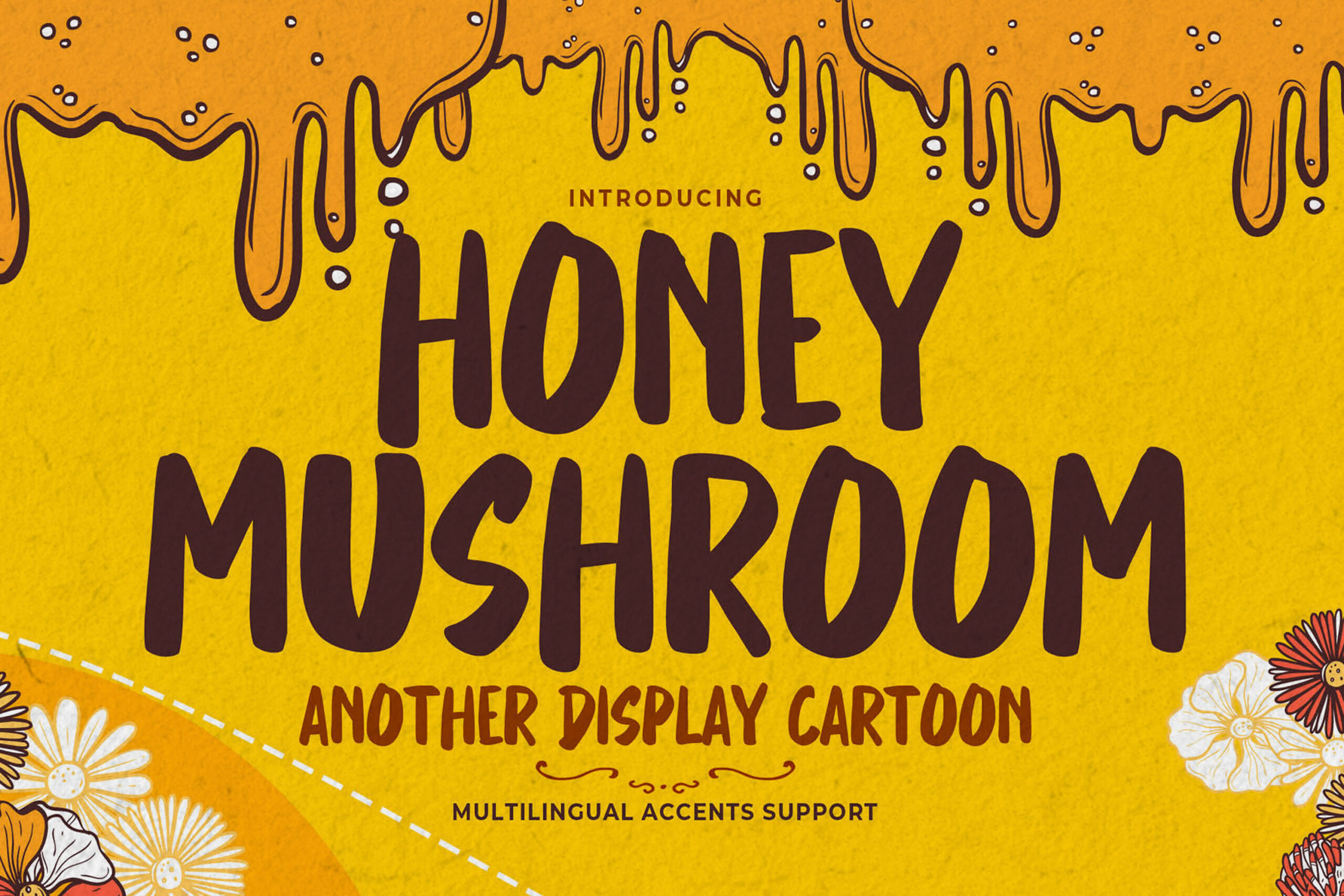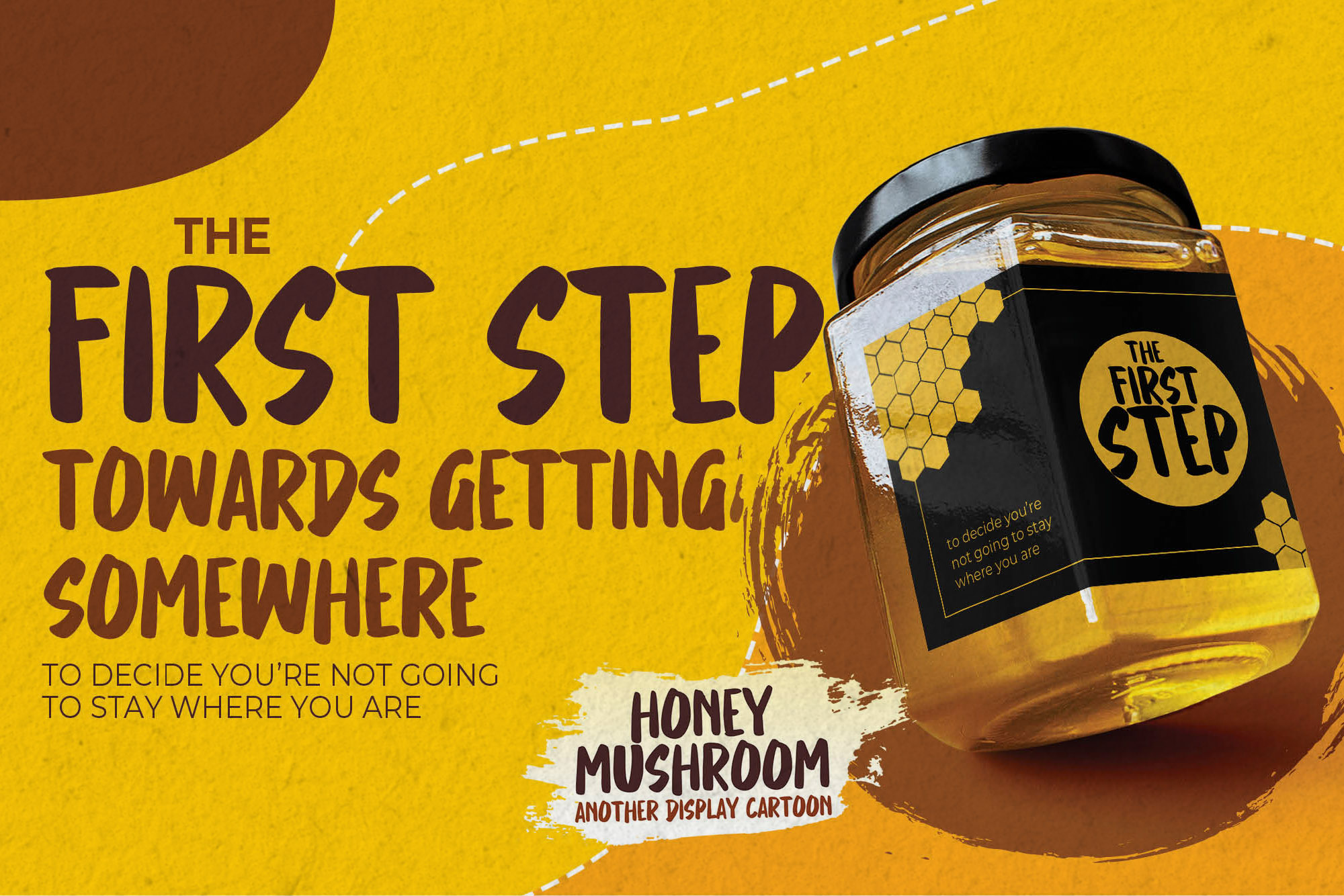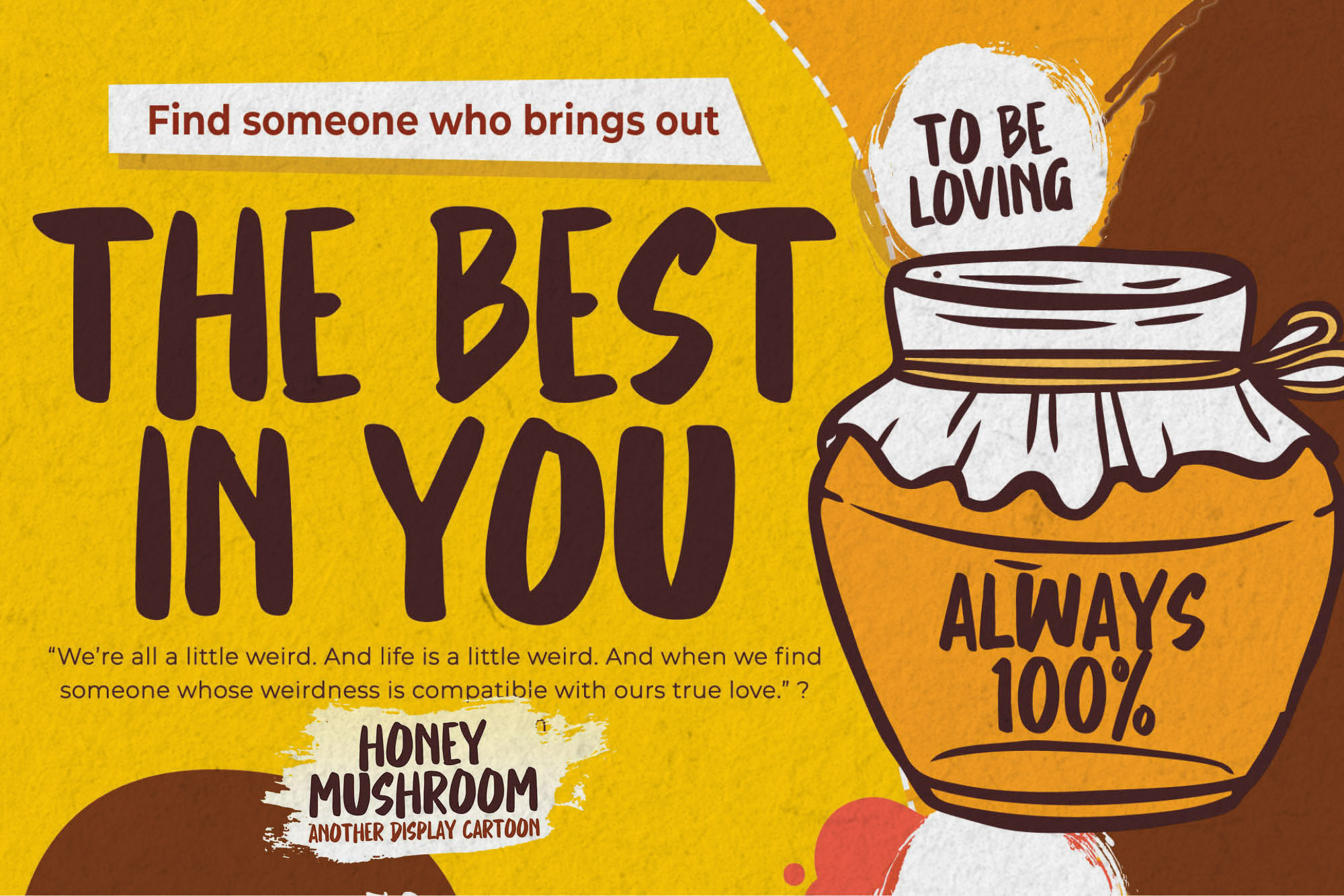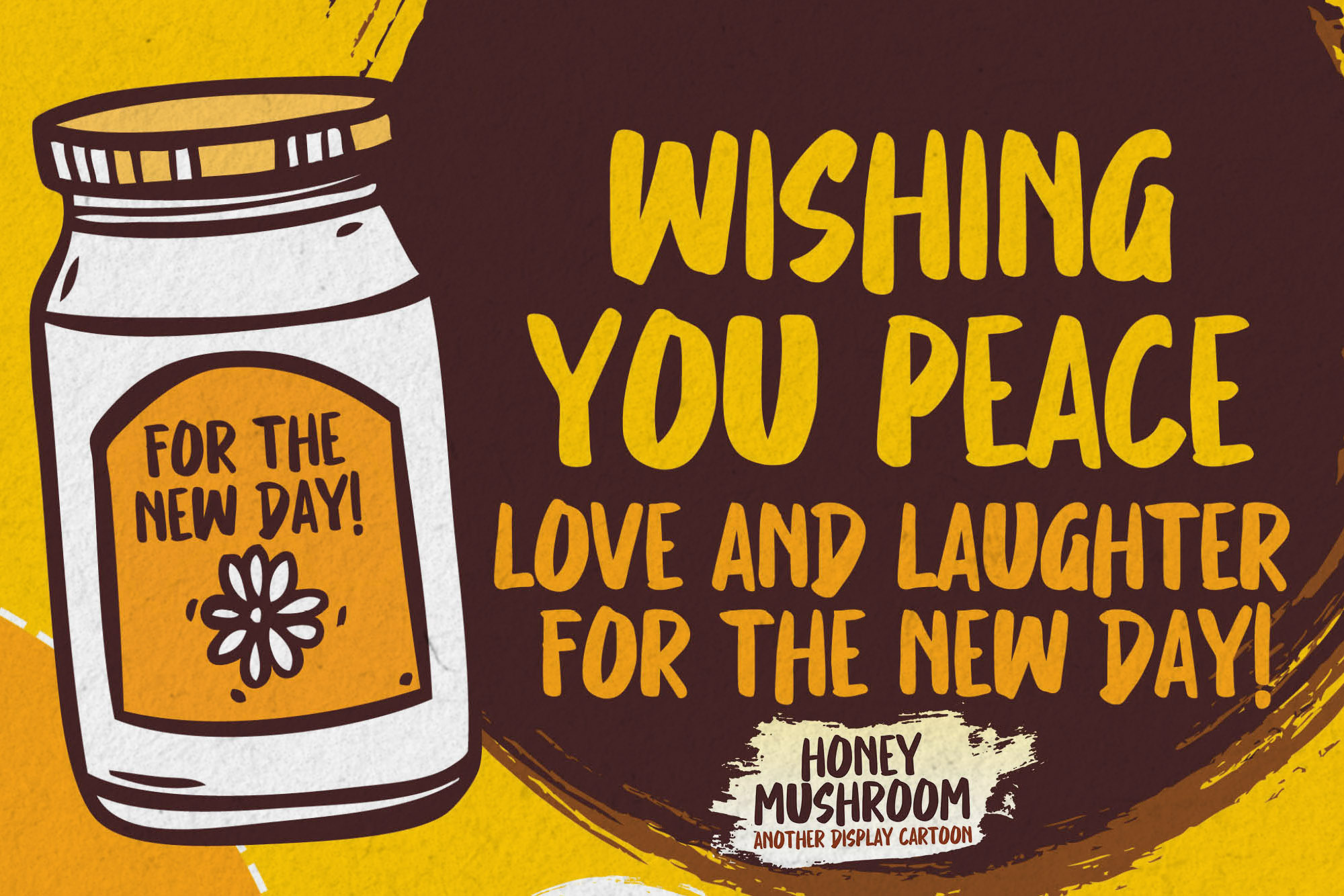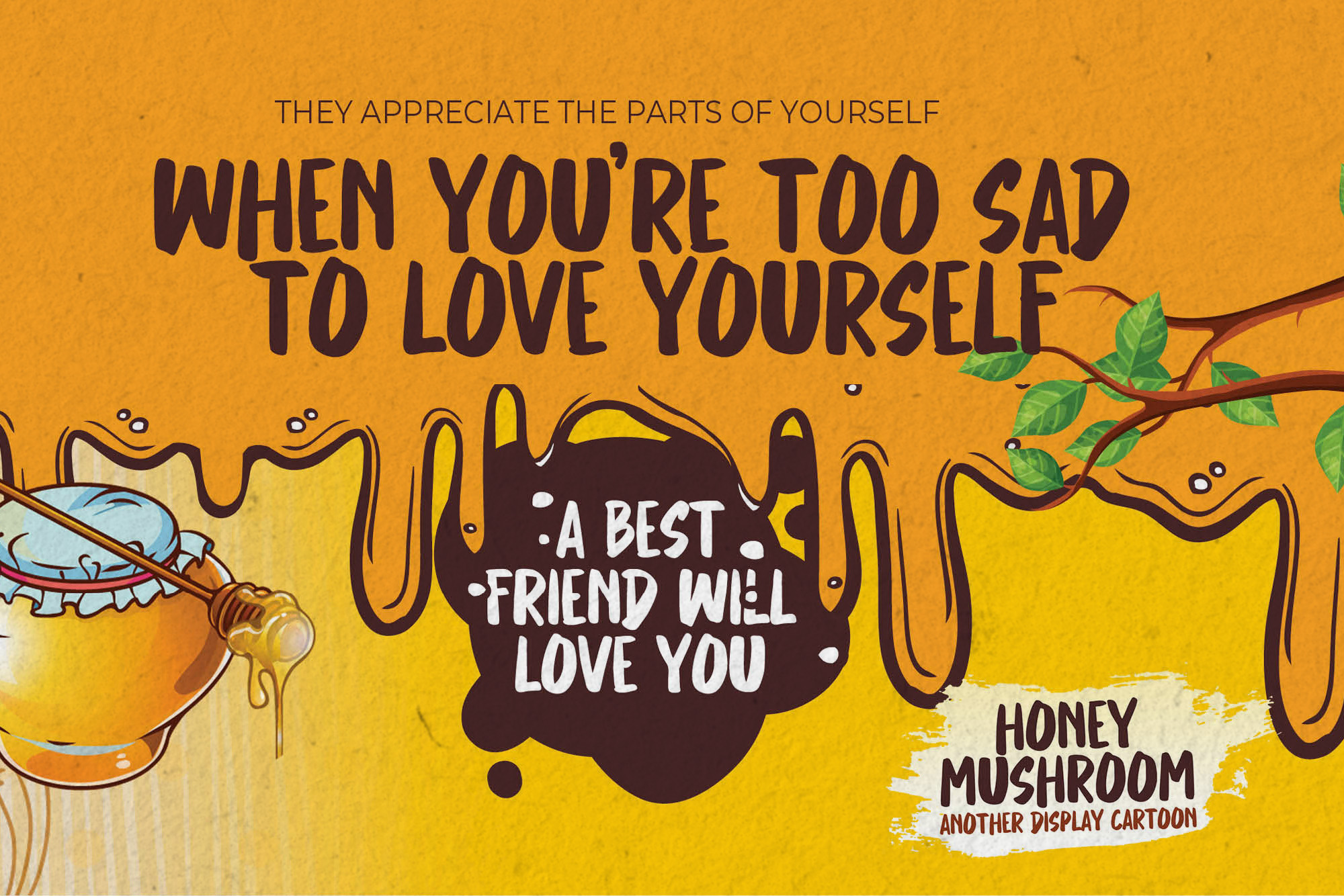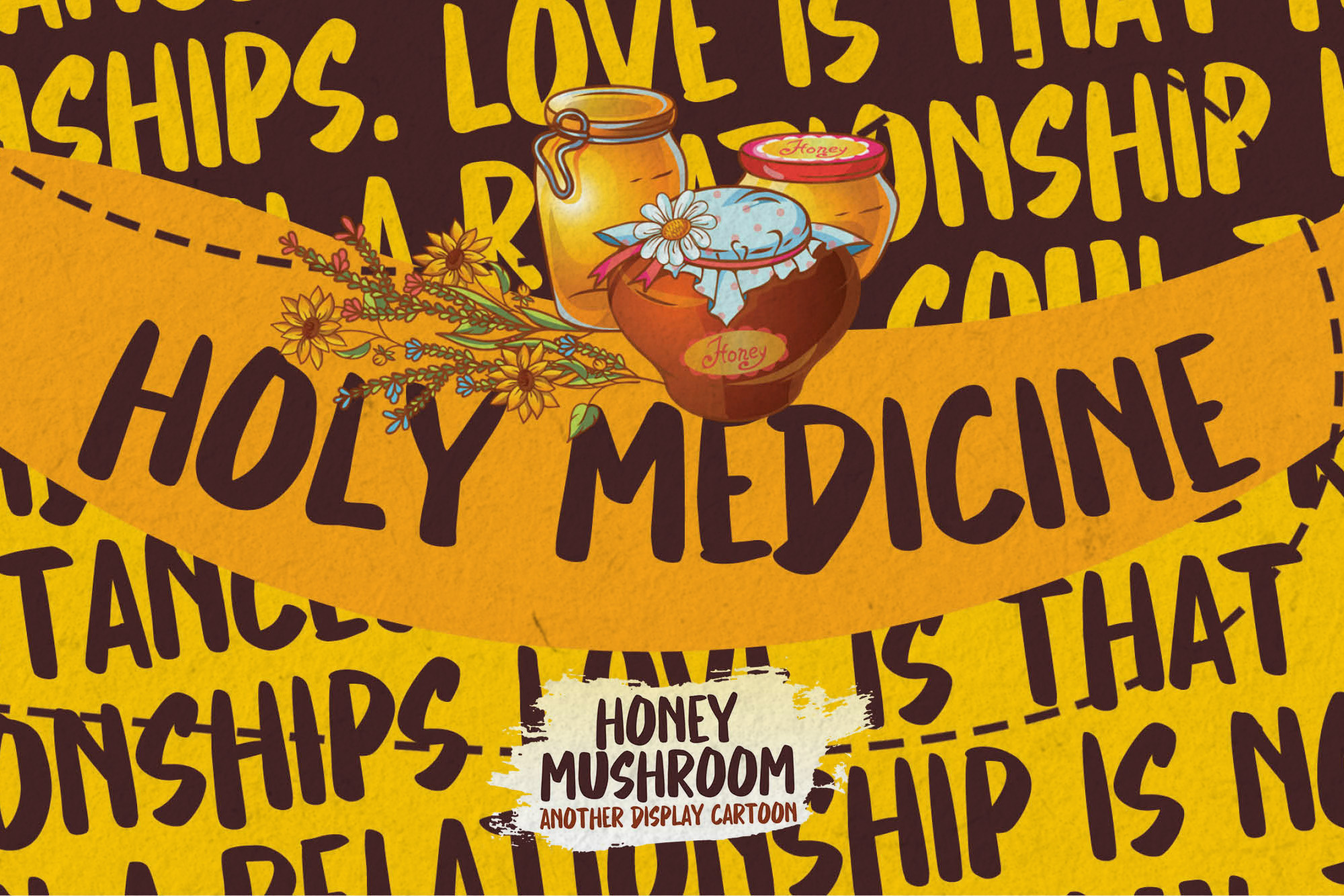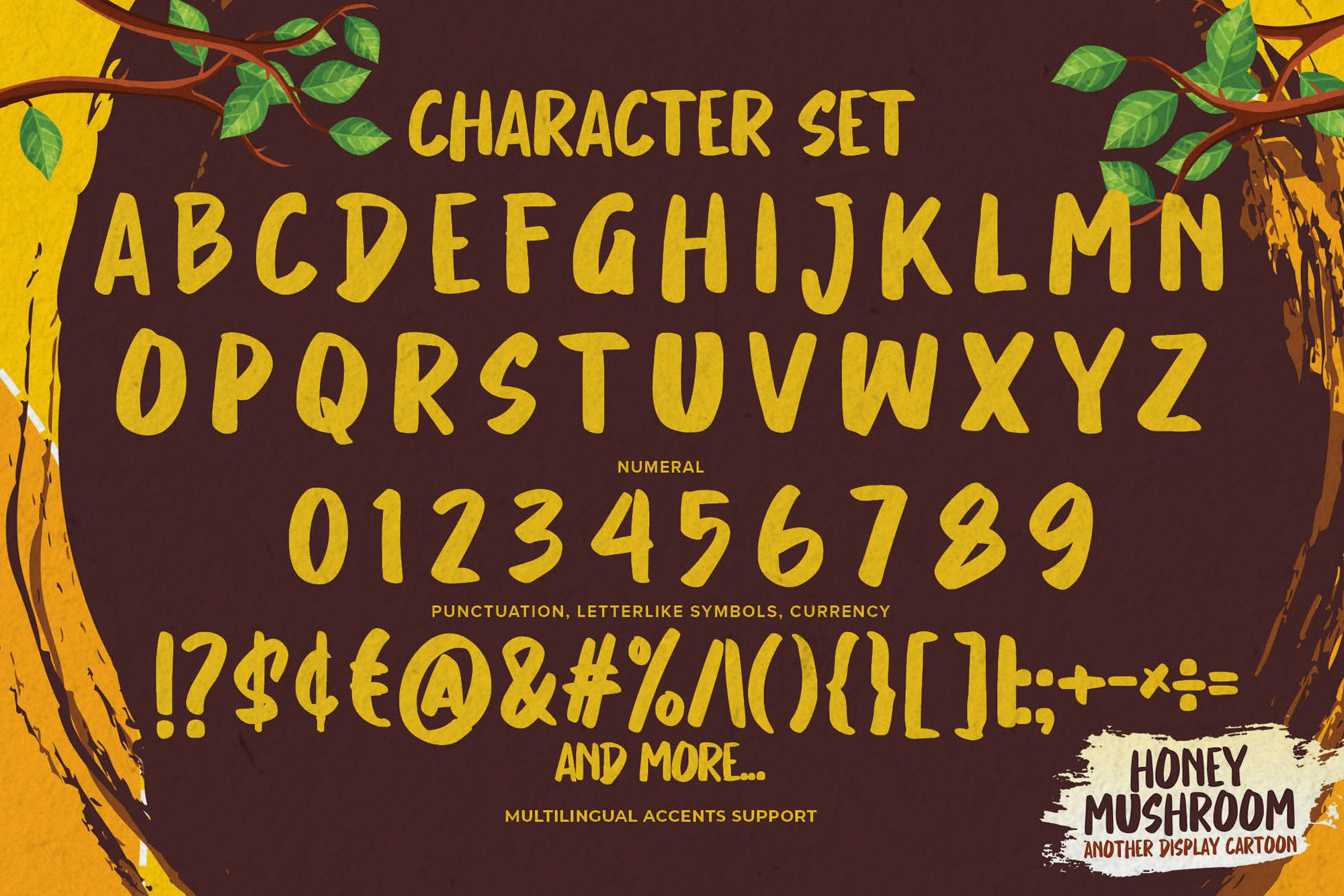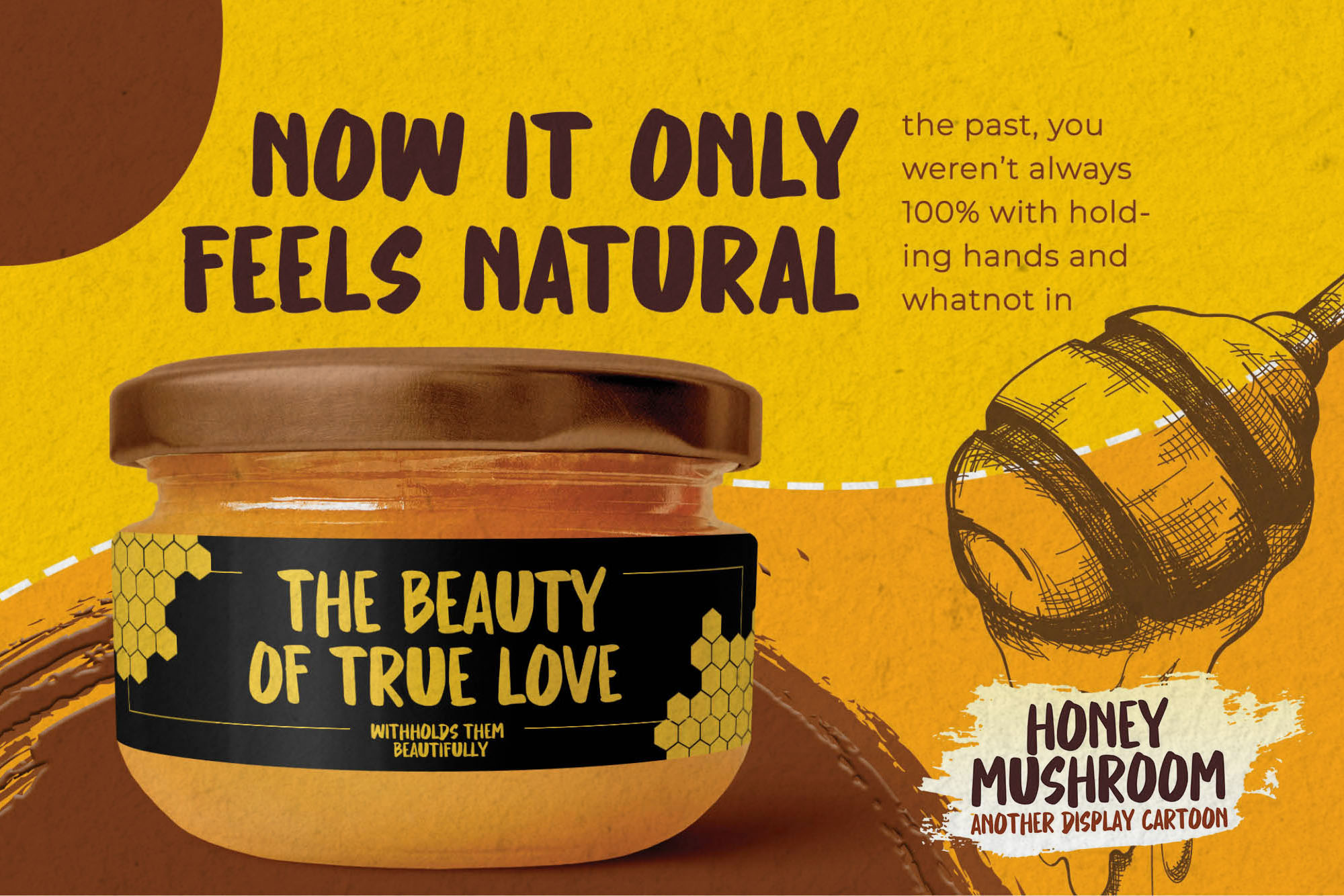
Honey Mushroom – Another Display Cartoon ,cute and unique is an that is written casually and quickly.
That is why Honey Mushroom has cartoon and unique characteristic more natural look to your text with a more modern look to your text. Perfect for designs, branding projects, Logo design,Quotes product packaging and another Project that require font.